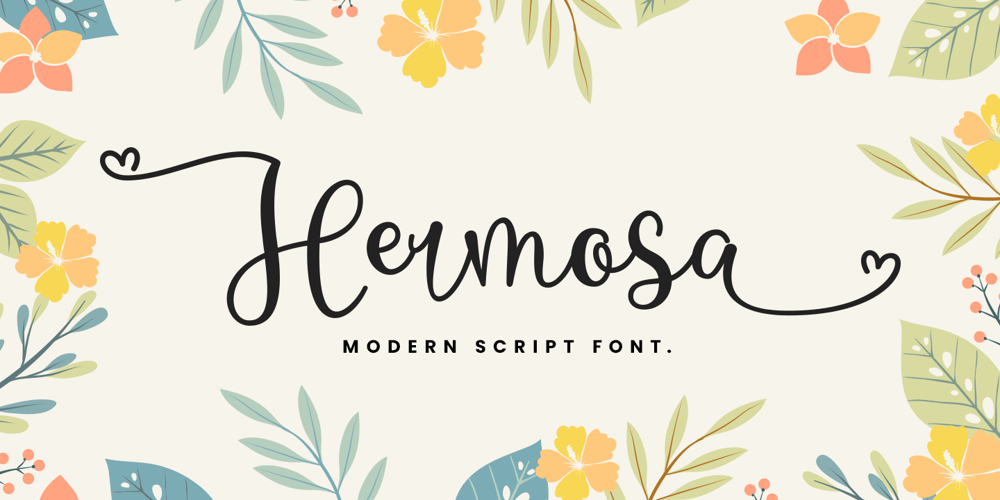
Hermosa Font Family was designed by Faisal Tanjung and published by sizimon. Hermosa contains 1 styles and family package options. Beautifly is an elegant and flowing handwritten font. It features a varying baseline, smooth lines, gorgeous glyphs and stunning alternates. It maintains its classy calligraphic influences while feeling contemporary and fresh. Fall in love with this font and bring your projects to the highest levels!